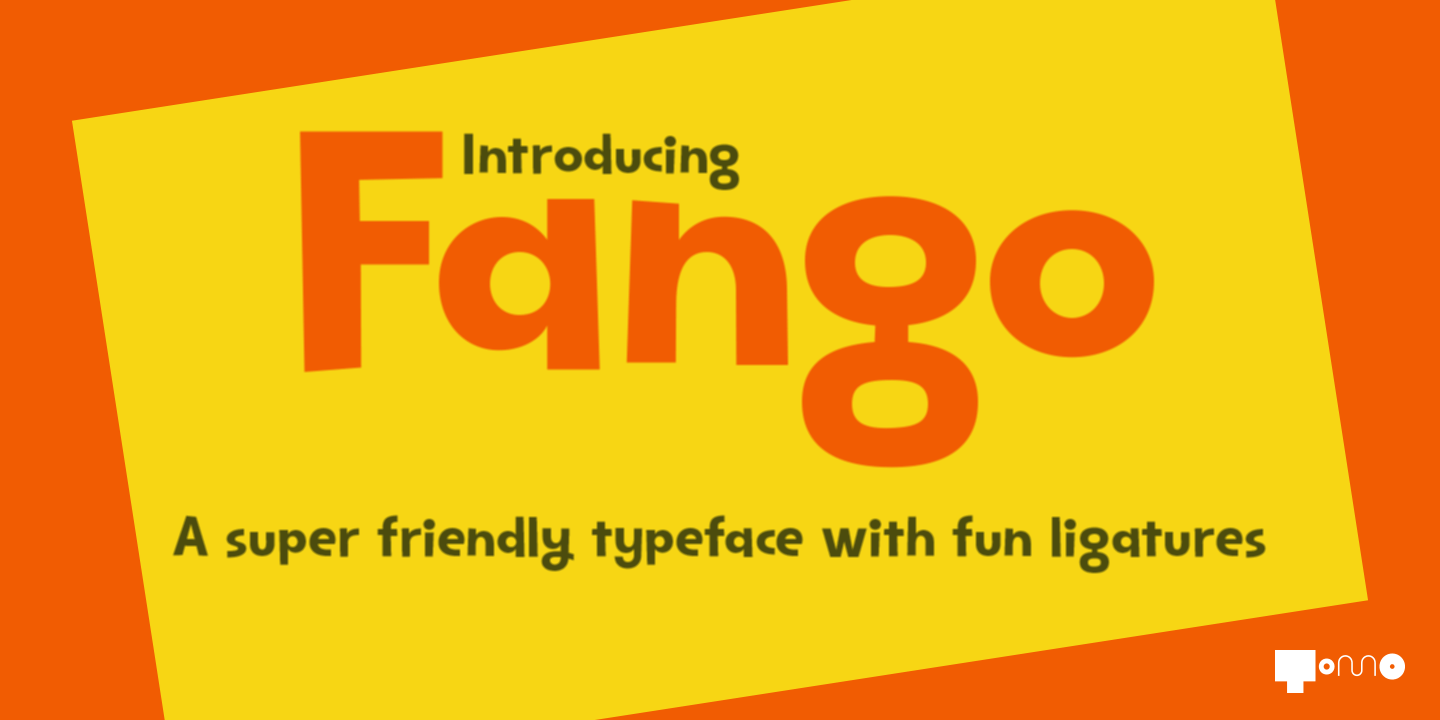
Discover the playful TOMO Fango Font Free Download, a sans serif typeface by TOMO Fonts that radiates a friendly, modern charm. This font is perfect for creating a fun, approachable aesthetic. However, please note that you must purchase this font for commercial use. For testing purposes, you can download it for free and explore its vibrant style.
The TOMO Fango Font is ideal for various applications, such as designing cheerful children’s book covers, crafting lively branding materials, creating engaging posters, or adding a playful touch to social media graphics. Its bold, rounded characters make it a top choice for projects that need a welcoming, modern look.
Why is the TOMO Fango Font Free Download so exciting? Its bold, consistent strokes and slight slant deliver a dynamic, happy vibe that enhances any design. The font’s clean, rounded design ensures readability while infusing projects with a contemporary, playful energy, perfect for creative campaigns.
The TOMO Fango Font family includes styles like Regular, Light, and an alternate variant, offering flexibility for diverse design needs. These variations allow you to experiment with different weights and effects, ideal for both print and digital media.
Elevate your projects with the TOMO Fango Font Free Download today. Test its lively, friendly charm and see how it transforms your creative work into something engaging and delightful. Download now and bring a modern, playful flair to your designs!